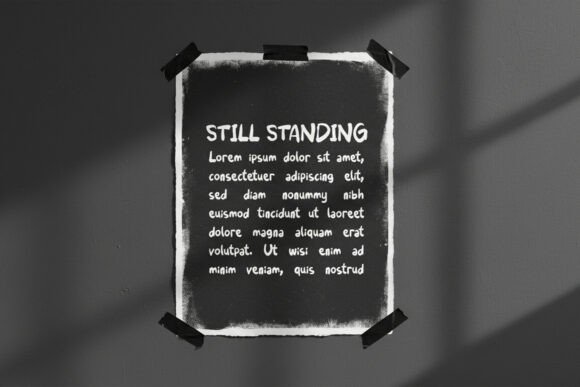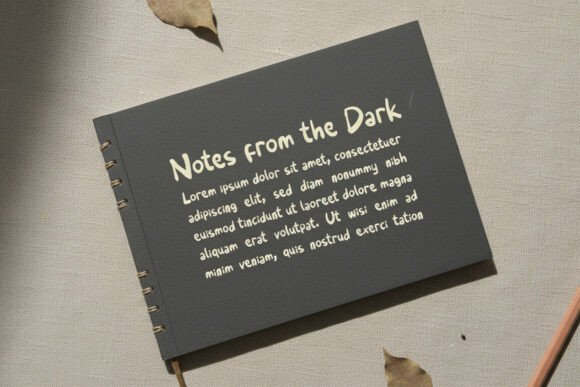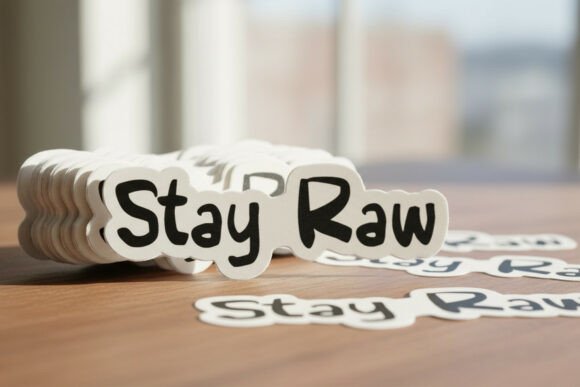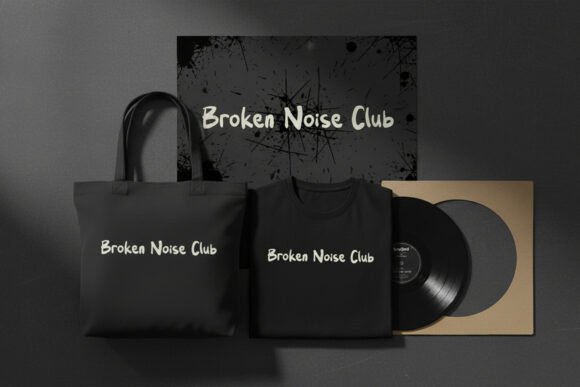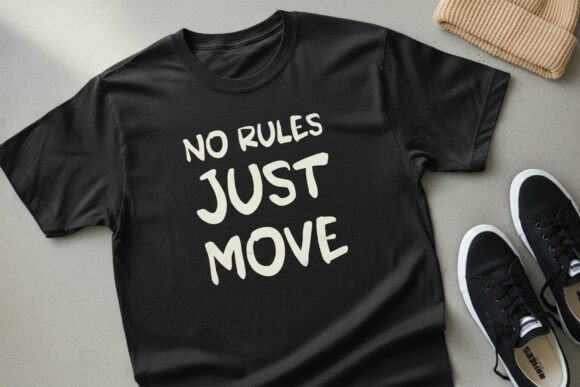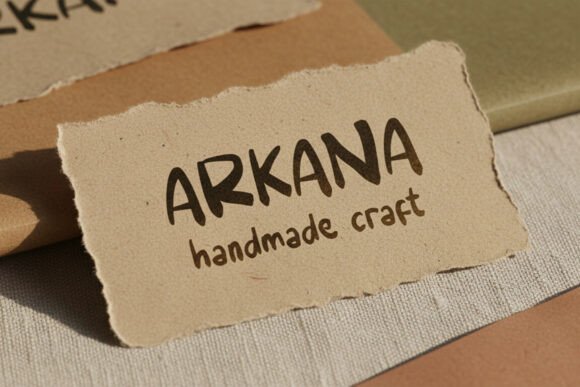
Introduction to Karlo Font
Have you ever been brainstorming a creative project and suddenly, the perfect font pops into your mind, bringing the entire design together? That’s exactly what happens when designers stumble upon the Karlo Font. This bold, chunky display typeface is a design resource that brings a friendly “comic” energy to the page, making it perfect for children’s packaging, playful food branding, and bold poster headlines.
The Karlo Font features soft, rounded corners and a slight hand-drawn texture that gives it an approachable, artisanal feel. Its high visual weight makes it easy to stand alone as a logo or a single-word graphic, and when paired with bright, primary colors and simple vector illustrations, it creates a high-energy design that appeals to all ages.
Key Features of Karlo Font
- High-quality design with a transparent background, making it ideal for creative projects.
- Unique characteristics include a modern and minimalist aesthetic, perfect for use in logos, branding, and typography-based designs.
Honest Review: Karlo Font
I recently had the chance to work with the Karlo Font, and I must say it’s a great addition to my design resource library. This high quality font is perfect for any creative project that requires a clean and modern look.
What works well: ✨ The Karlo Font has a transparent background, making it easy to overlay on any image or design. The font itself is highly customizable, allowing me to adjust the size, color, and style to fit my design needs.
- High quality: The font is well-designed and looks great on a variety of devices and screen sizes.
- Creative freedom: The font’s versatility makes it perfect for a wide range of creative projects, from logos to web design.
Limitations: ⚠️ The only downside I found was that the font doesn’t include a lot of ligatures or special characters, which can be a limitation for some designs.
Overall, I’m impressed with the Karlo Font and would definitely recommend it to fellow designers. It’s a great addition to any design resource library and is perfect for anyone looking for a high quality, free font for their next creative project.
Karlo Font is a high-quality design resource perfect for your creative project. This versatile font features a transparent background, making it easy to use in various design applications.
Tips for Getting the Most Out of Karlo Font
To get the most out of Karlo Font, use it in combination with other design elements to create a cohesive and visually appealing design. Experiment with different font sizes, colors, and styles to find the perfect combination.
Common Use Cases for Karlo Font
Karlo Font is perfect for a variety of creative projects, including:
- Typography